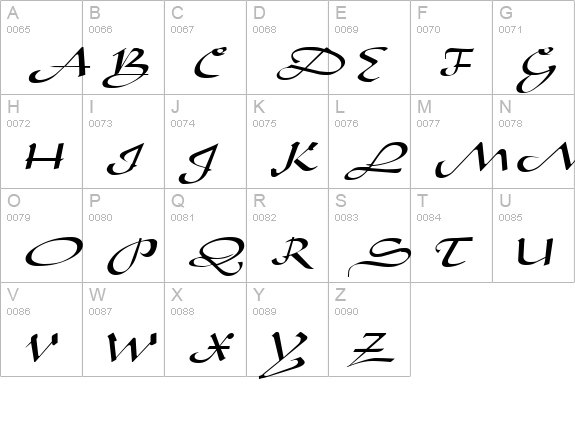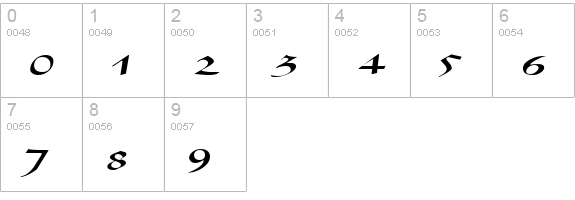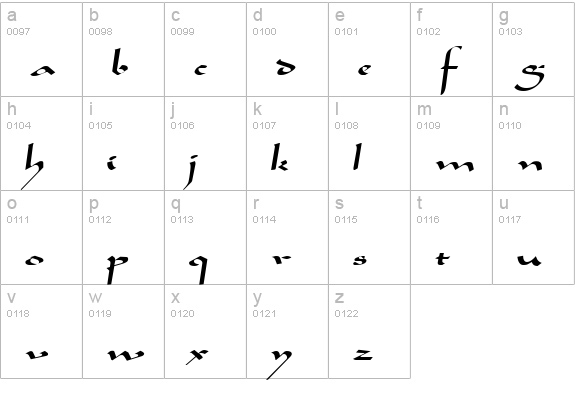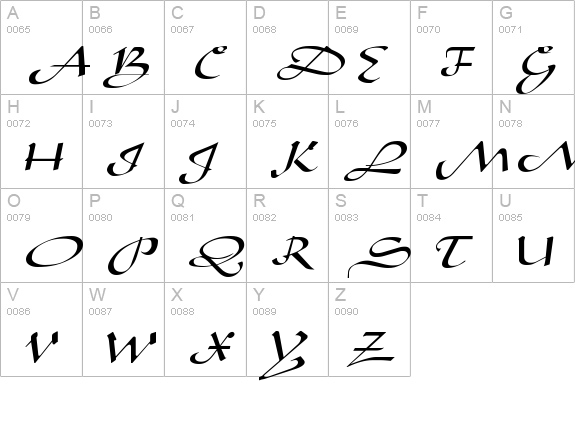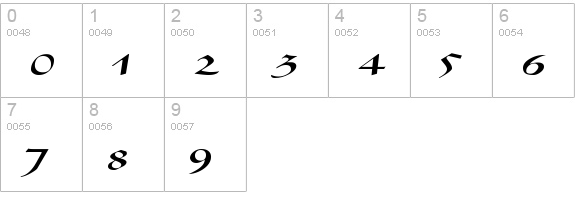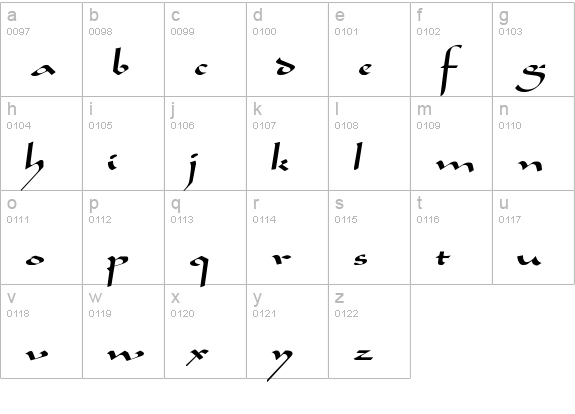
AladdinExpanded Regular Font Details
AladdinExpanded Regular is the standard, neutral variant in the AladdinExpanded typeface family \xE2\x80\x94 well suited to general body text, paragraphs, and standard typographic work.
AladdinExpanded Regular font is an enchanting and whimsical typeface that is sure to add a touch of magic to any project. With its elegant curves and stylish design, this font is perfect for creating eye-catching headlines, invitations, and more. The AladdinExpanded Regular font is freely available to download at FontsMarket.com, making it easy to add a touch of Arabian Nights-inspired flair to your designs. Whether you're working on a fairytale-themed project or simply looking to add a bit of charm to your work, the AladdinExpanded Regular font is sure to make a statement. Download it today and unleash your creativity!